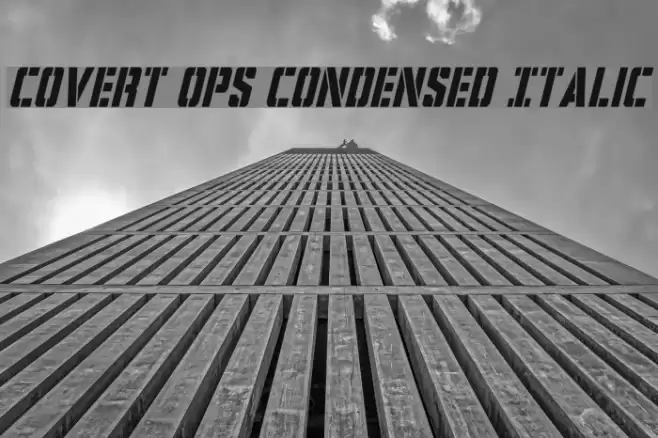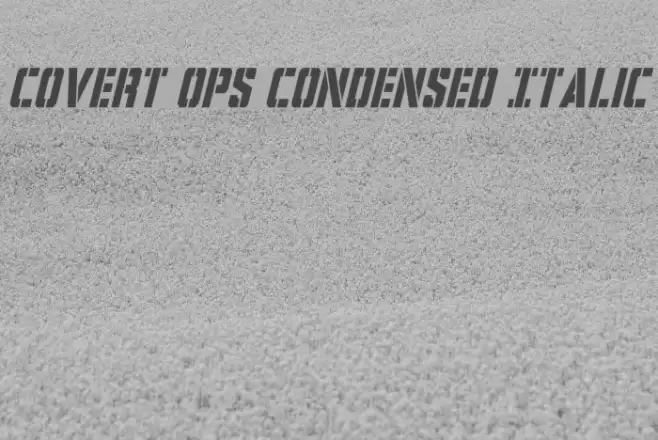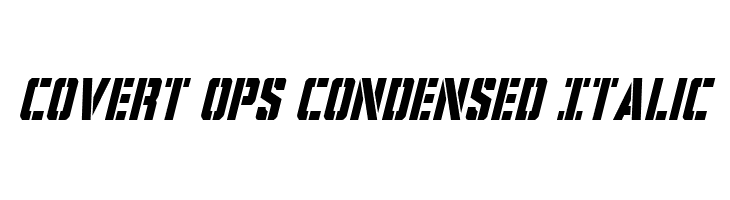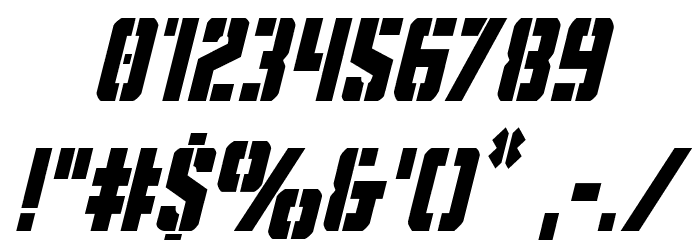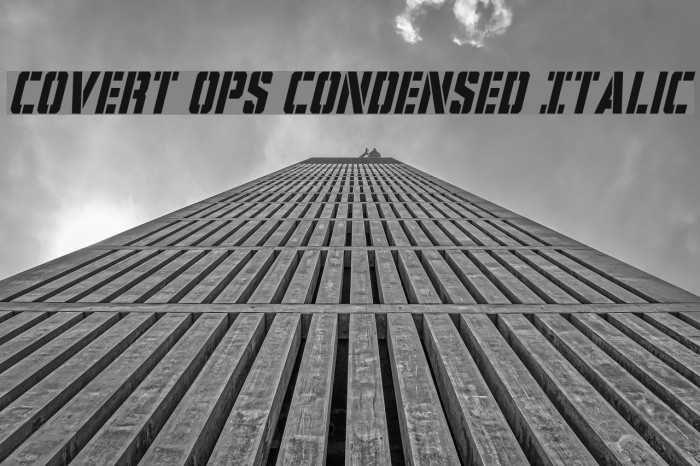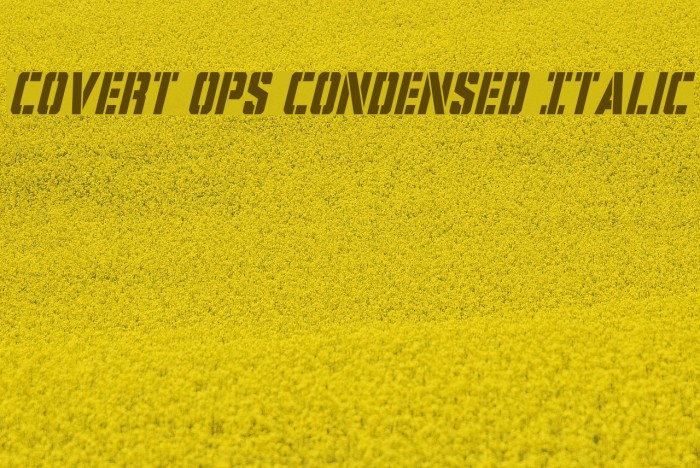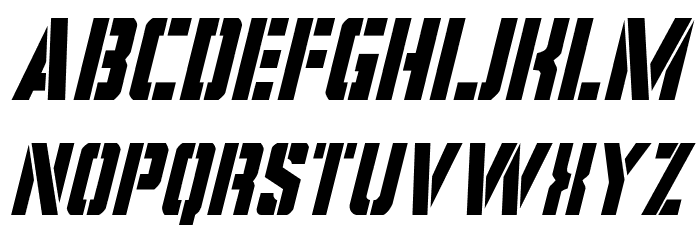
Covert Ops Condensed Italic Font
Covert Ops Condensed Italic Description
This font features a bold, condensed style with a distinct italic slant, giving it a dynamic and forward-moving appearance. The characters are sharply angular with a modern, futuristic feel, making it ideal for attention-grabbing designs. The uppercase letters are particularly striking, with consistent stroke thickness and a geometric structure. The numbers and special characters maintain the same bold and angular aesthetic, ensuring uniformity across all glyphs. This font is well-suited for projects that require a strong visual impact, such as branding, posters, and headlines.
Bold, condensed, and italic with a modern, angular design from Uncategorized fonts.
- Proposed Projects: Ideal for branding, posters, headlines, and any design requiring a strong visual impact.